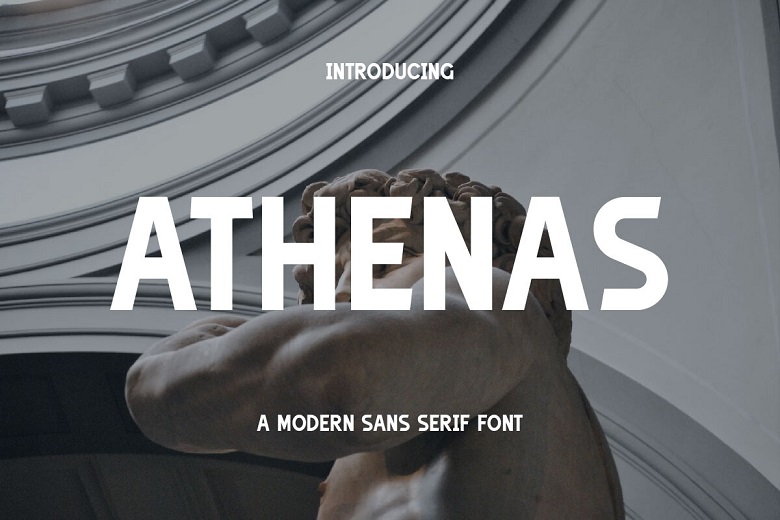
Athenas Font
Athenas is neat and clean sans serif typeface font belongs to modern and contemporary category. It’s clean, not to be confused with white, and easy on the eyes making it ideal for all sorts of projects. Whether you are creating title designs, logos, brand identity, poster/flyer designs, web designs, advertisements, labels or packages, text descriptions, websites, and more, Athenas makes sophisticated changes to your text. Given that its design is clean cut and quite sleek, your words will look stunning on it.
Athenas Sans Serif Font